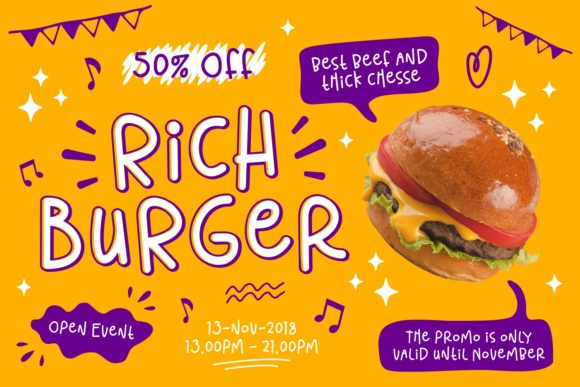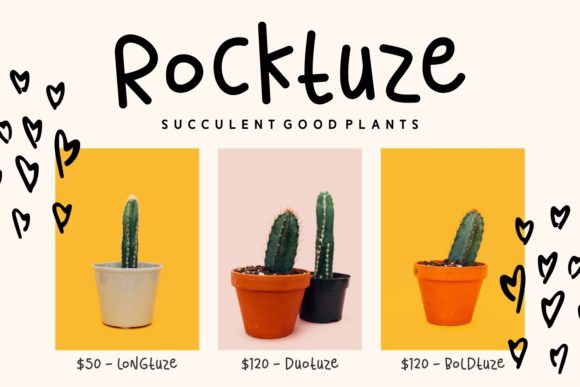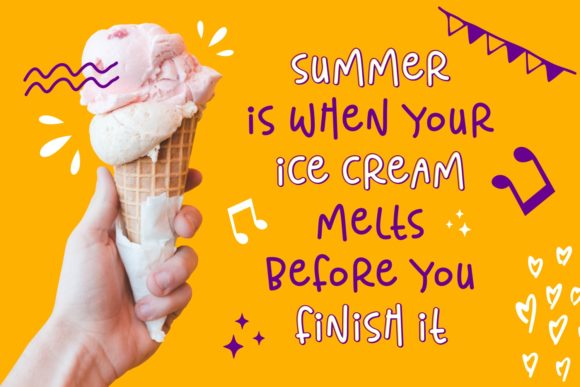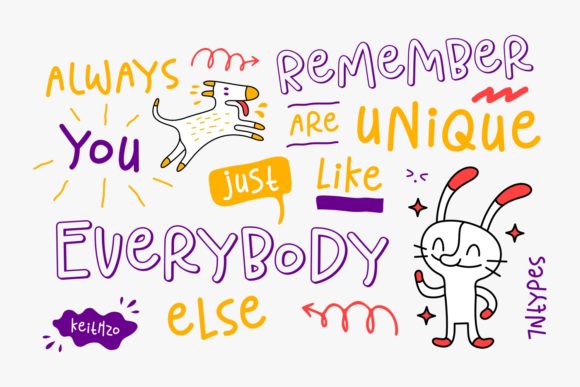
Introduction to Lighthearted Pleasure Font
Who hasn’t had a moment where they’re brainstorming a creative project and suddenly, the perfect font pops into their head? For designers, the right font can make all the difference in bringing a design to life. And for those looking for a fun and playful touch, the Lighthearted Pleasure Font is definitely worth considering.
With its carefree script style and two delightful variations – regular and shadow – this font is perfect for adding a whimsical touch to any design. Whether you’re working on a project with a transparent background or need a high-quality font for your next design resource, the Lighthearted Pleasure Font is a valuable addition to any designer’s toolkit. And the best part? It’s available for a free download, making it an accessible and exciting design resource for creatives of all levels.
Key Features of Lighthearted Pleasure Font
- Unique and playful design suitable for creative projects and advertisements
- Perfect for adding a lighthearted touch to packaging, social media graphics, and other design elements
- Comes with a comprehensive character set, including uppercase and lowercase letters, numbers, and punctuation marks
Honest Review: Lighthearted Pleasure Font
I recently stumbled upon the Lighthearted Pleasure Font and was excited to try it out for my next creative project. As a designer, I appreciate high-quality fonts that can elevate my work, and this one definitely delivers.
- Unique and playful design: The Lighthearted Pleasure Font has a charming, handwritten feel that adds a touch of personality to any text.
- High-quality glyphs: The font includes a wide range of glyphs, including ligatures and accents, which ensures that your text looks professional and polished.
- Transparent background: Unfortunately, the font doesn’t include a transparent background option, which can make it tricky to use with complex backgrounds.
- Limited language support: While the font includes a range of glyphs, it’s not suitable for languages that require a lot of diacritical marks.
Overall, I’m impressed with the Lighthearted Pleasure Font. While it may have a few limitations, its unique design and high-quality glyphs make it a great addition to any designer’s toolkit. ✨ I’d definitely recommend it for your next creative project.
How to Use Lighthearted Pleasure Font
To get the most out of the Lighthearted Pleasure Font, try pairing it with other design resources, such as graphics or icons. Experiment with different font sizes and styles to create a unique look. And don’t be afraid to use the font in unexpected ways, such as in a title or heading.
The Lighthearted Pleasure Font is a versatile design resource that can be used in a variety of creative projects, from wedding invitations to social media graphics. Its high-quality design and transparent background make it perfect for use in digital design.